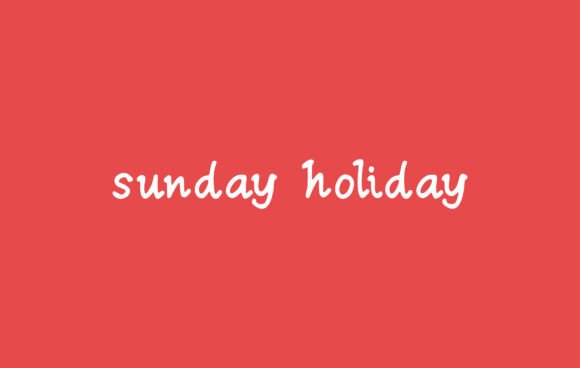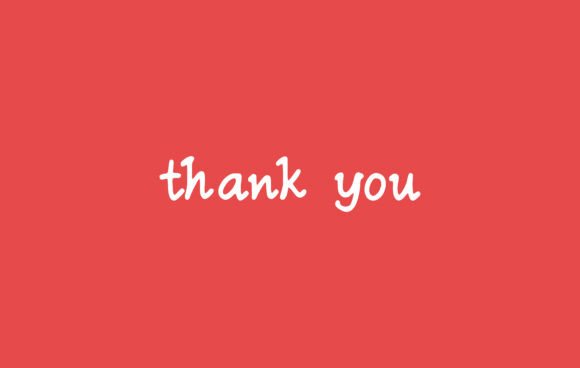
Introduction to Nyra Font
Have you ever stared at a blank page, waiting for inspiration to strike, only to have a spark of creativity suddenly ignite? For designers, those moments are priceless. And what’s even more exciting is having the perfect tool to bring those ideas to life. Enter the Nyra Font, a beautiful, authentic handwritten font that’s sure to become a favorite in your design arsenal.
With its romantic touch and expertly crafted design, the Nyra Font is the perfect addition to any creative project. Whether you’re working on a magazine headline, social media campaign, or wedding invitation, this font is sure to elevate your design and make it stand out. And the best part? It’s a high-quality, free download that’s ready to be used on any transparent background you desire.
Key Features of Nyra Font
- High-quality design resource with a modern and sleek aesthetic, ideal for creative projects.
- Perfect for use in logos, branding materials, and other creative projects where a clean and sophisticated font is required.
Honest Review: Nyra Font
As a designer, I’m always on the lookout for high-quality design resources that can elevate my creative projects. Recently, I had the chance to try out the Nyra Font, and I’m excited to share my honest review with you.
Here’s what I like about the Nyra Font:
- ✨ High-quality design: The font is well-crafted and looks great on any background.
- ✨ Versatile: It comes in a range of weights and styles, making it perfect for various creative projects.
- ✨ Transparent background: This feature makes it easy to customize and combine with other design elements.
While the Nyra Font is a great resource, I did encounter a few limitations:
- ⚠️ Limited language support: The font doesn’t support as many languages as some other fonts on the market.
- ⚠️ Not ideal for small text: Due to its design, the font can be difficult to read when used in small sizes.
Overall, I think the Nyra Font is a great addition to any designer’s arsenal. While it may have some limitations, its high-quality design and versatility make it a valuable resource for any creative project. If you’re looking for a free font that’s perfect for larger-scale designs, I highly recommend giving it a try.
Nyra Font
Nyra Font is a high-quality design resource ideal for various creative projects. It’s available for free download and features a transparent background, making it easy to incorporate into your designs.
Getting the Most Out of Nyra Font
For optimal results, use Nyra Font in conjunction with other high-quality design resources. Experiment with different font sizes, colors, and arrangements to achieve a unique and visually appealing design.
Nyra Font is ideal for various creative projects, including business logos, social media graphics, and presentation slides. Its transparent background makes it easy to layer over images or other design elements.
Alternatives to Nyra Font
Merriweather is a classic serif font suitable for a wide range of design applications, from body text to headings. It features a high level of legibility and a sophisticated feel. When to use: For traditional, elegant designs, and publications.
Q: Can I use the Nyra Font on a transparent background?
Yes, the Nyra Font features a transparent background, allowing for effortless integration with custom backgrounds and designs. This makes it an ideal choice for designers working on complex, multi-layered projects.
Q: What is the recommended font size for optimal readability with the Nyra Font?
For optimal readability, we recommend using the Nyra Font at sizes between 12 and 24 points. This range ensures clear, legible text while maintaining the font’s unique aesthetic and design integrity.